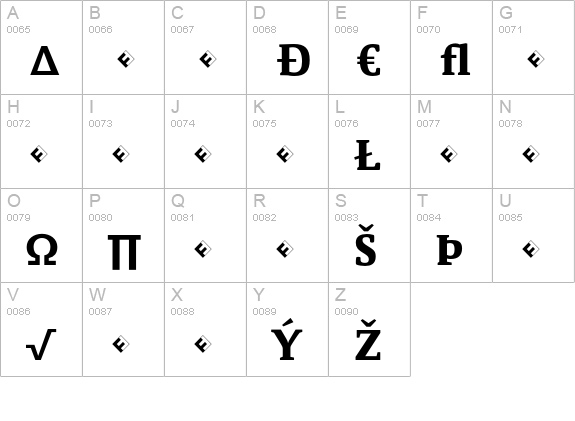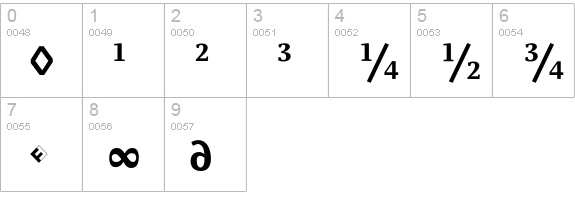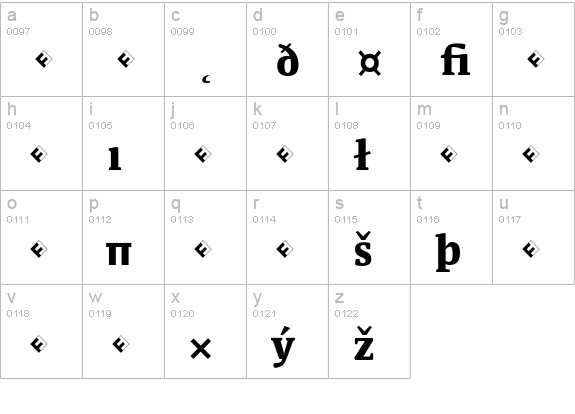
Parable-ExtraBoldExpert Font Details
Introducing Parable-ExtraBoldExpert font, a masterpiece in the world of typography. This font exudes confidence and boldness, making it perfect for creating impactful designs that demand attention. With its expertly crafted curves and meticulously designed letterforms, Parable-ExtraBoldExpert is a true work of art. Designed with utmost precision, this font showcases a unique blend of elegance and strength. Each letter is meticulously crafted to ensure perfect balance and readability, even at smaller sizes. The bold strokes and sharp edges of Parable-ExtraBoldExpert add a touch of modernity, making it ideal for contemporary designs. But what sets Parable-ExtraBoldExpert apart is its versatility. Whether you're designing a logo, creating a poster, or crafting a headline, this font can effortlessly adapt to any project. Its strong presence on the page commands attention and leaves a lasting impression. And the best part? Parable-ExtraBoldExpert is freely available to download at FontsMarket.com. Yes, you read that right - this incredible font can be yours without spending a dime. Now you can create stunning designs without breaking the bank. So why wait? Unleash your creativity and elevate your designs with Parable-ExtraBoldExpert. Download it for free at FontsMarket.com and discover the power of this extraordinary font. Whether you're a professional designer or a hobbyist, Parable-ExtraBoldExpert is the perfect tool to take your creations to the next level. Don't miss out on this opportunity - get your hands on Parable-ExtraBoldExpert and let your designs speak for themselves.